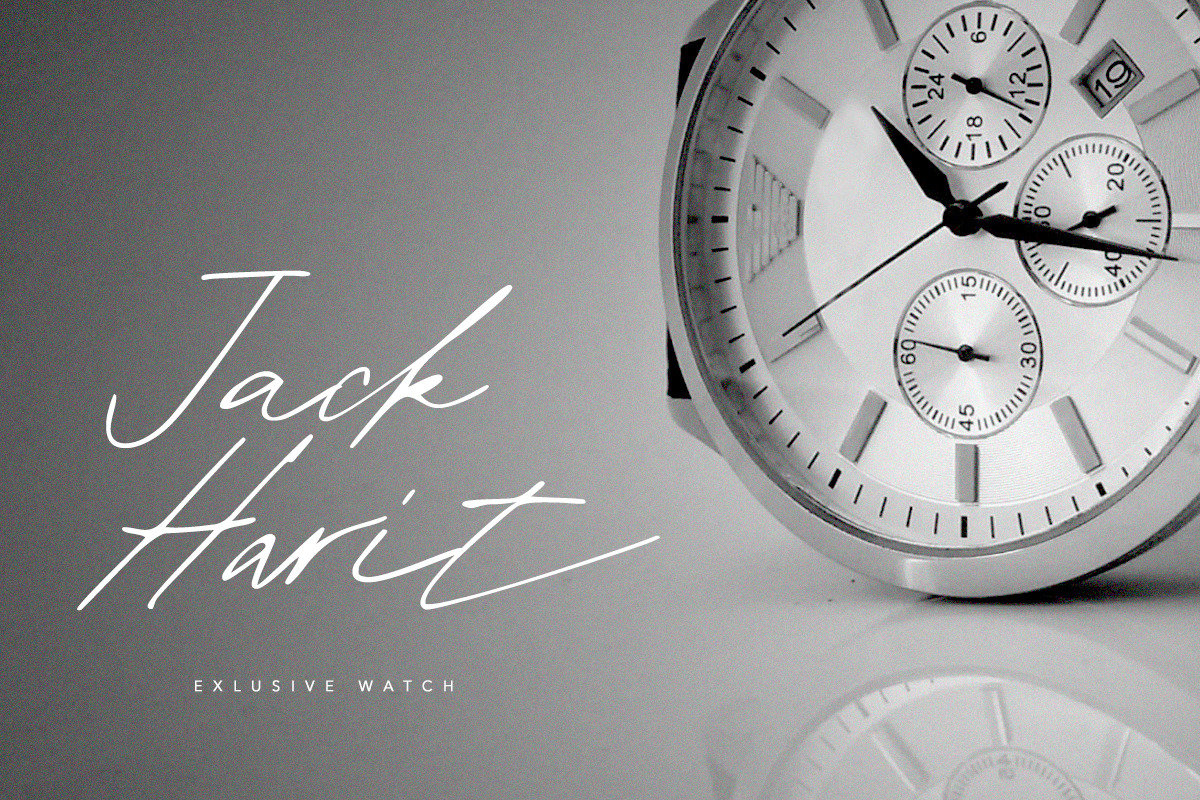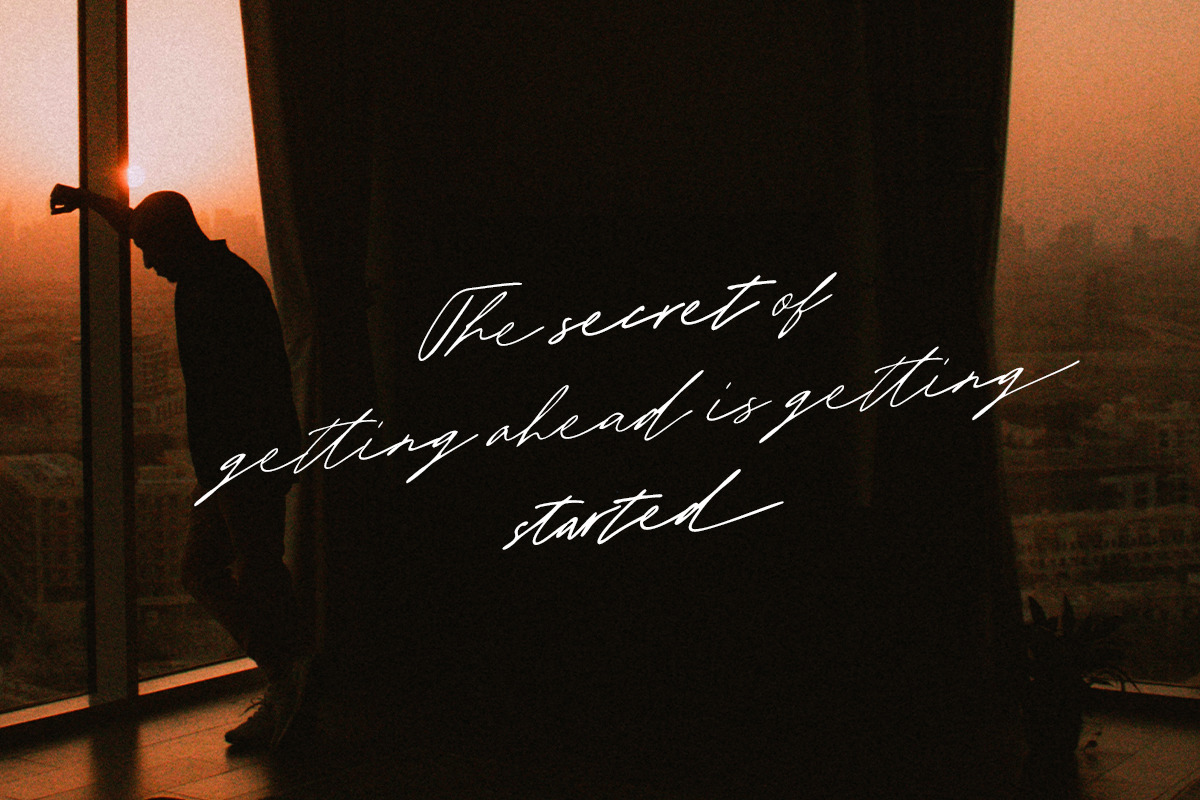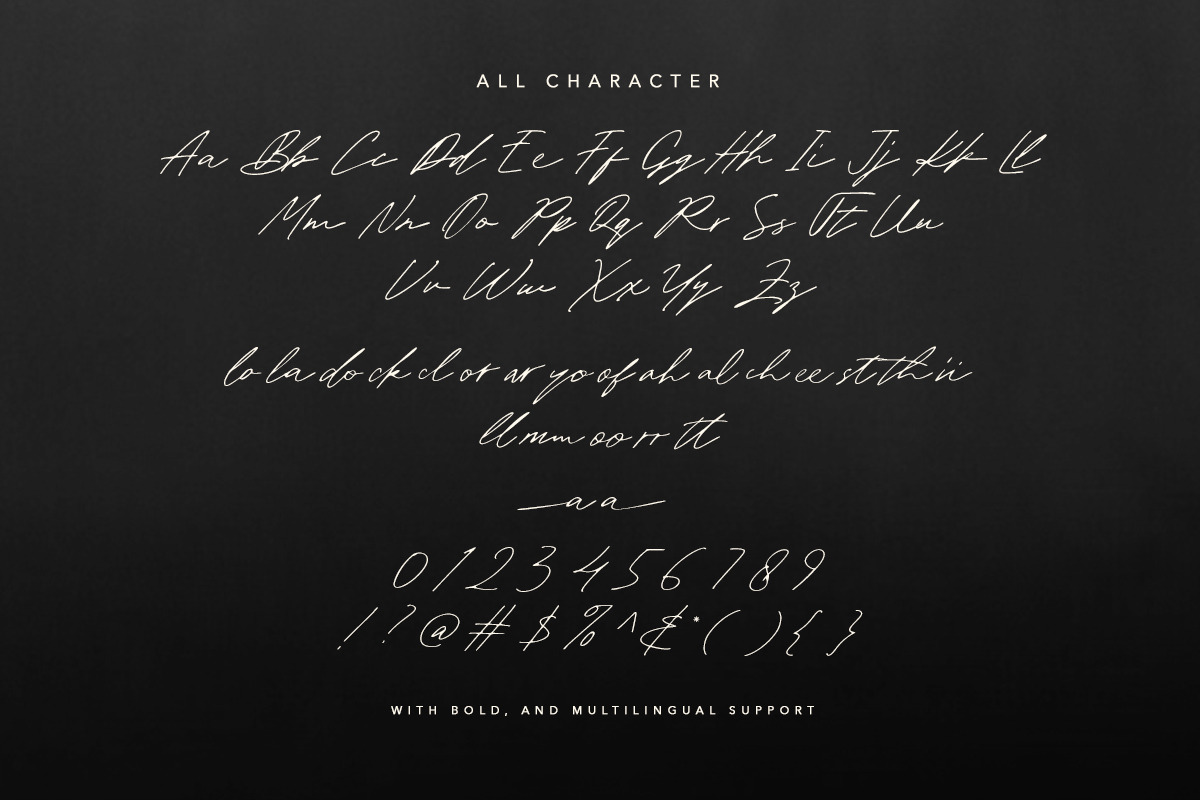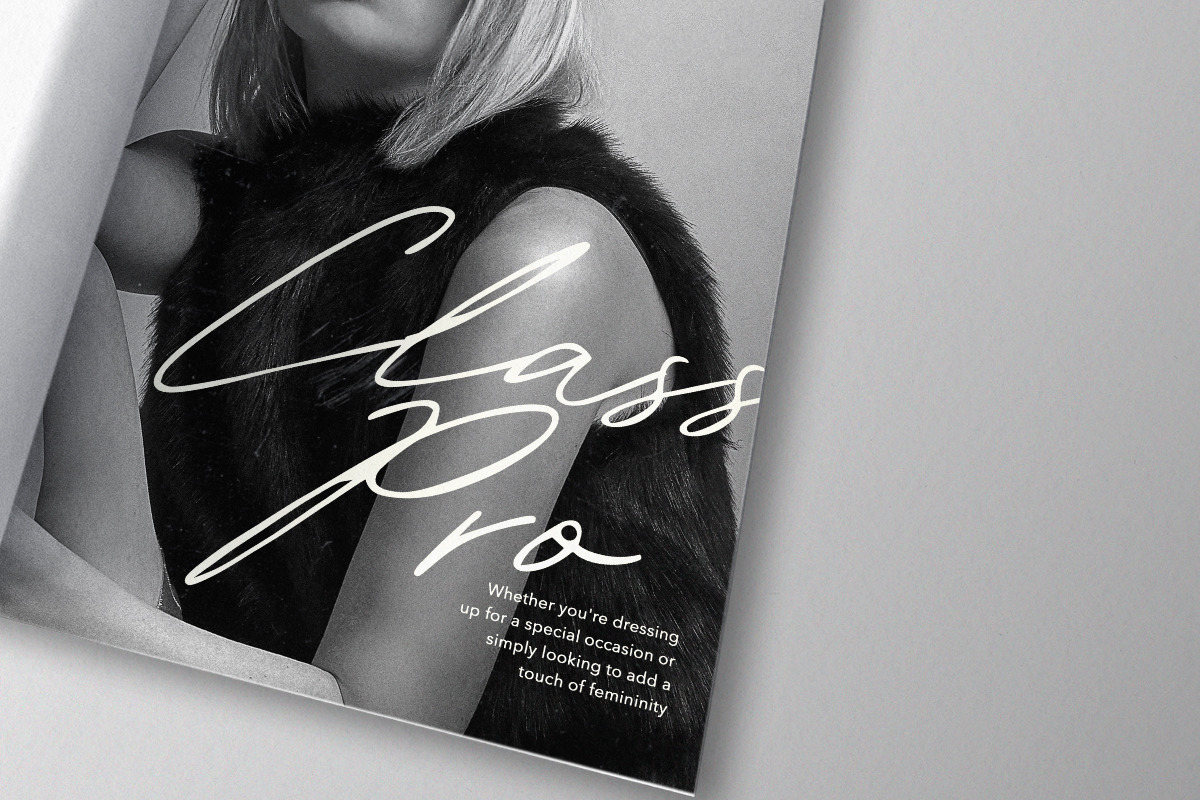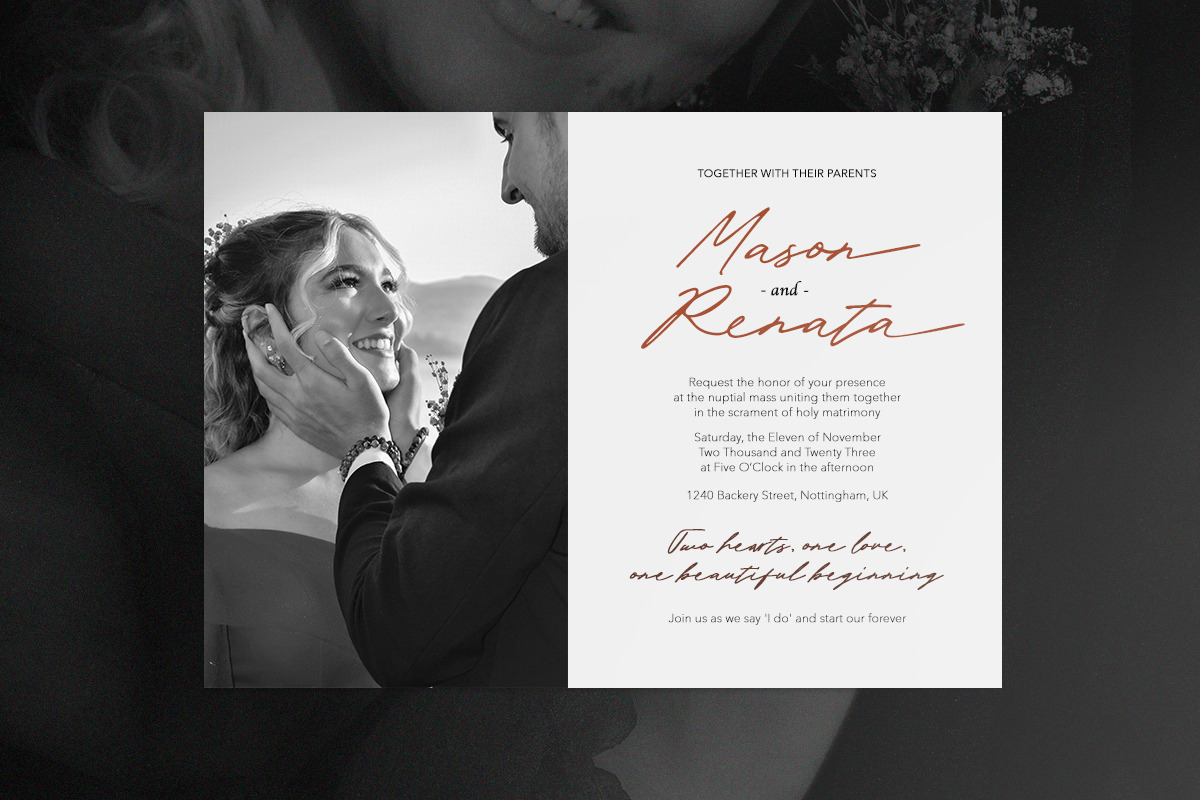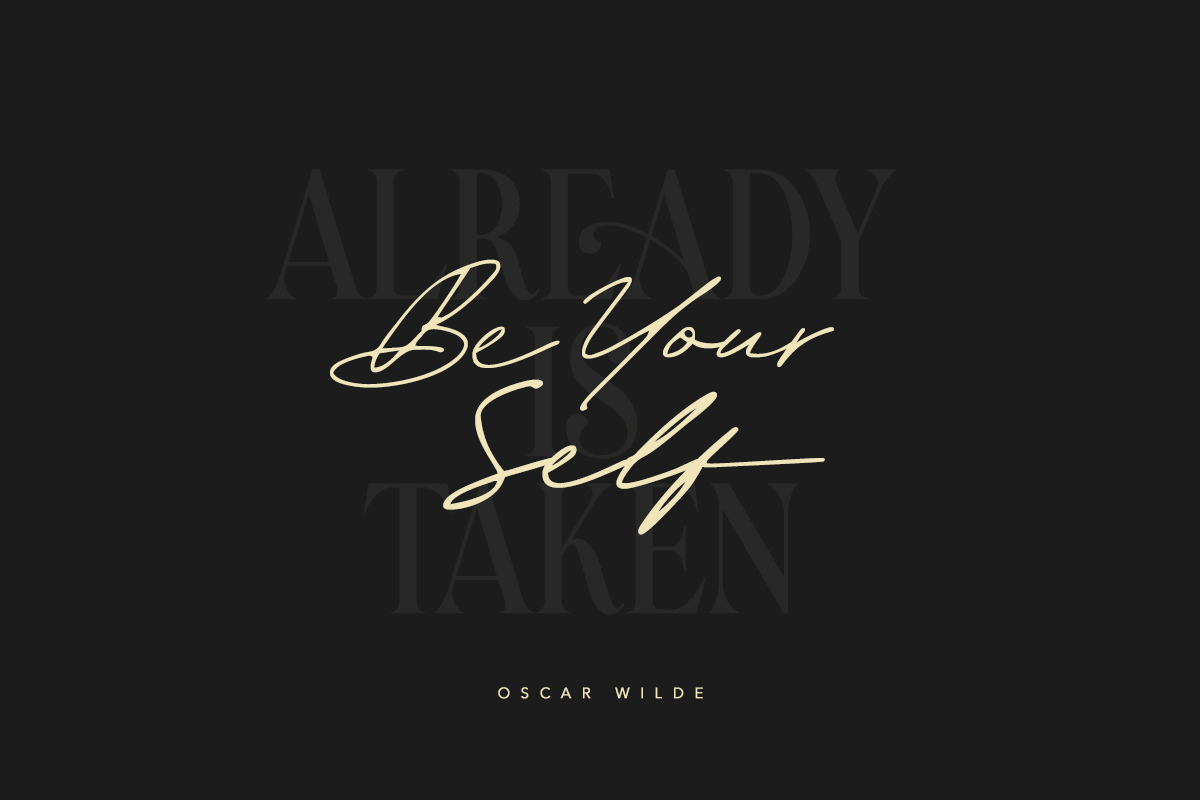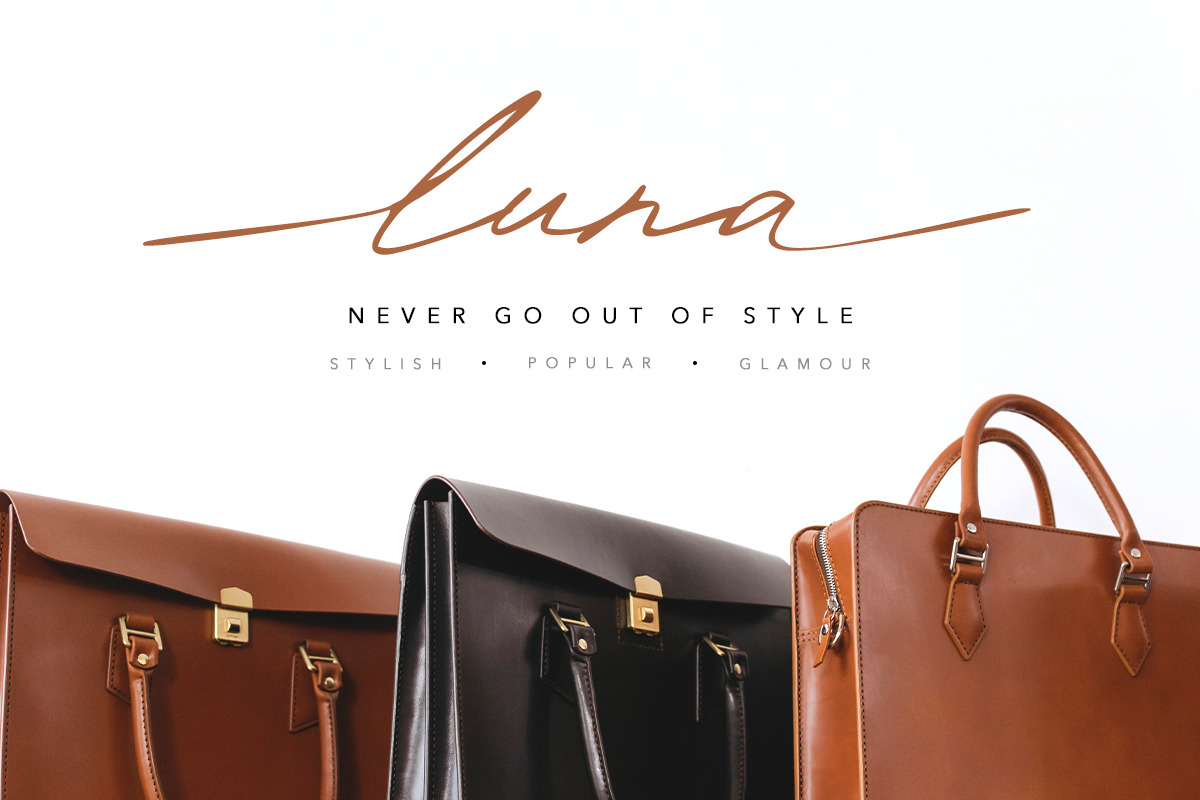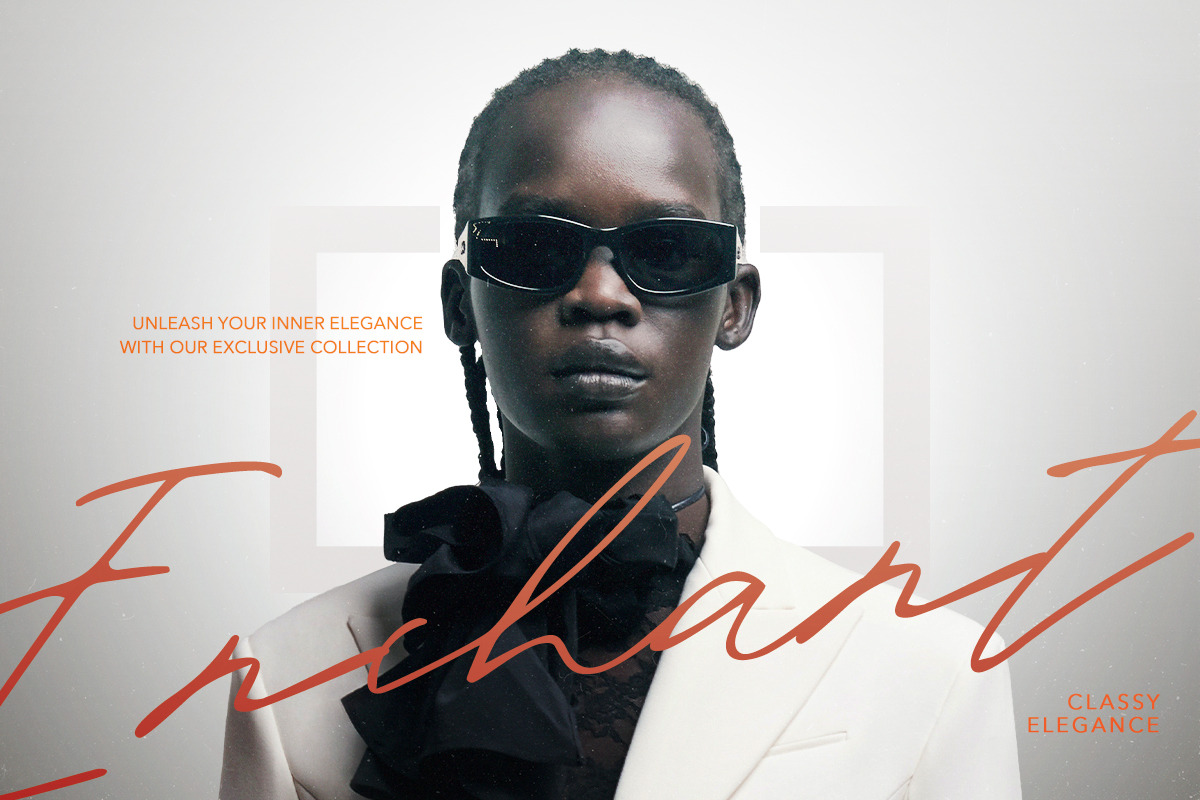
Right Sign - Handwritten Signature
Right Sign is a handwritten signature with ligatures and alternates. Come with Regular and Bold, you can choose that suitable for what your needs. You can use this font for any purposes, such as digital signature, logo, branding, quotes, and also for complimentary of your sans or serif font. This font also support multi language!